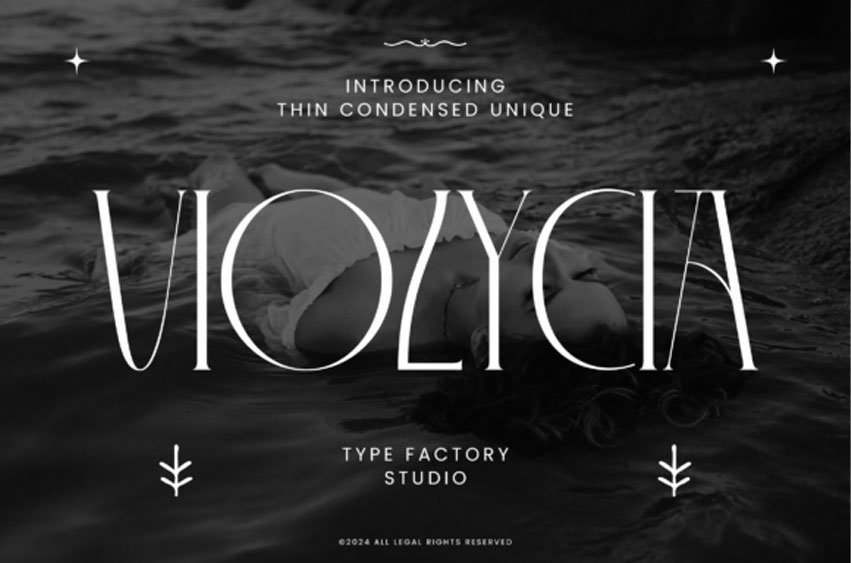
Violycia Font is a slender display serif typeface designed with tall proportions and refined stroke contrast.
Violycia works well for magazine headlines, fashion branding, logotypes, packaging, posters, and contemporary graphic layouts where tall and refined typography helps define the overall visual tone.